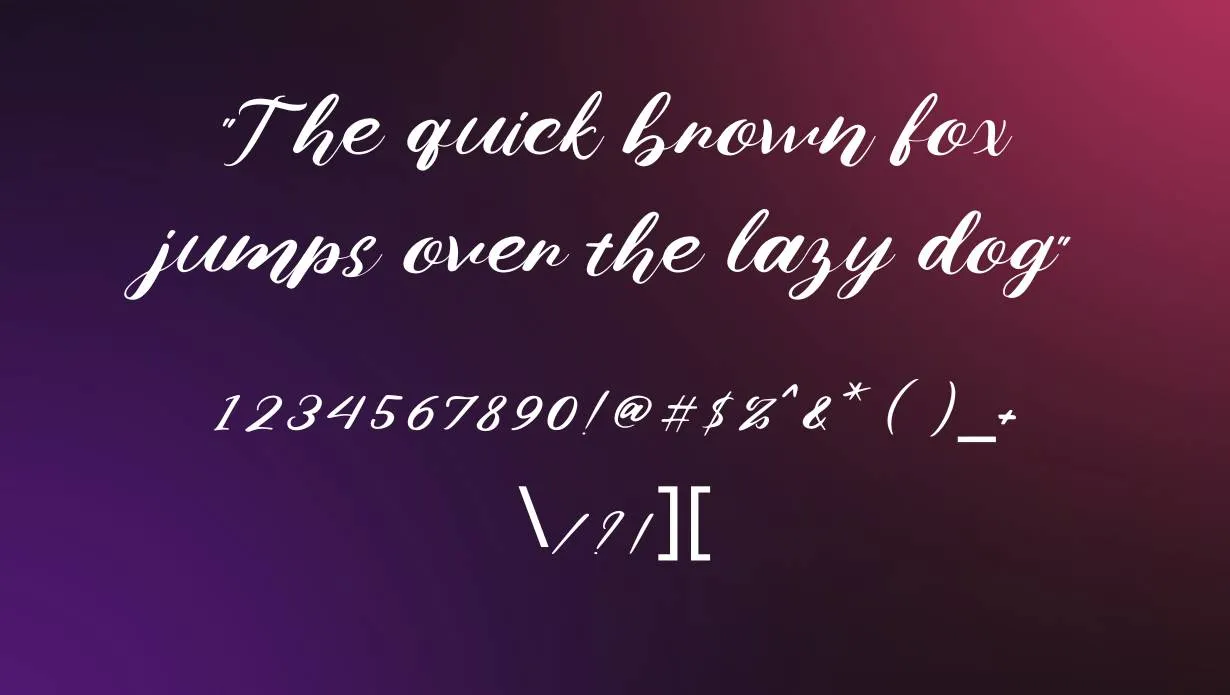
The Nona Diana font is a versatile and engaging typeface used in designs that require a unique and dynamic touch. Its playful and slightly irregular letters make it perfect for conveying a vibrant and informal message. This font is commonly used in social media graphics, posters, or personal branding.
The weight of Nona Diana font varies from regular to bold, offering flexibility in emphasizing text. Its width is typically moderate, allowing for easy readability in various contexts, such as informal invitations or energetic promotional materials.